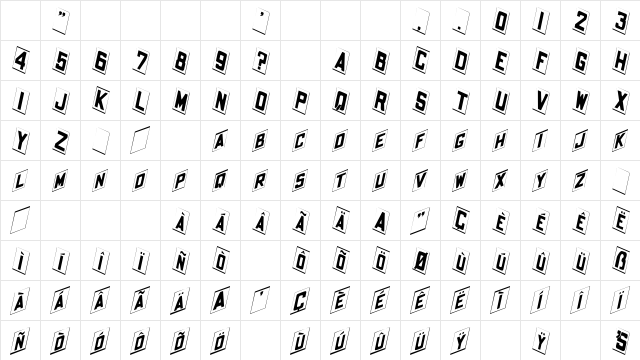
Placecard is a composed and adaptable typeface that performs quietly and consistently across a wide range of design contexts. The slanted form adds forward momentum and visual energy.
Pro Tip: Use Placecard for emphasis, pull quotes, and subheadings where its slanted energy can add rhythm to the layout.